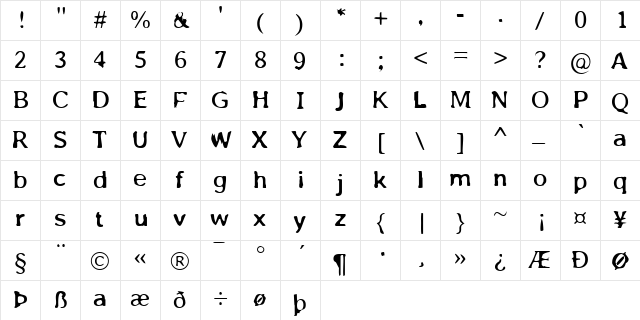
u.box98 Regular
Design Context for u.box98 Typeface
u.box98 is a composed and adaptable typeface that performs quietly and consistently across a wide range of design contexts.